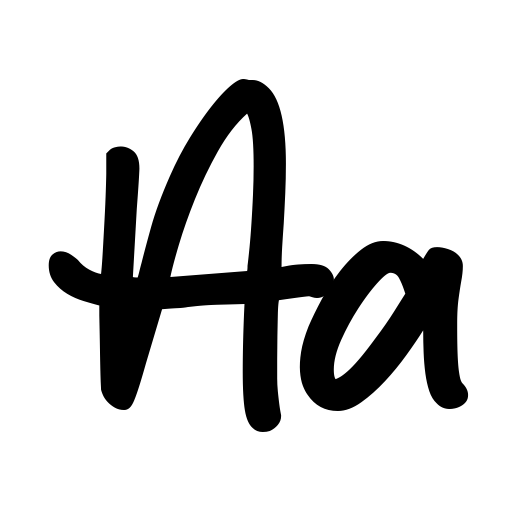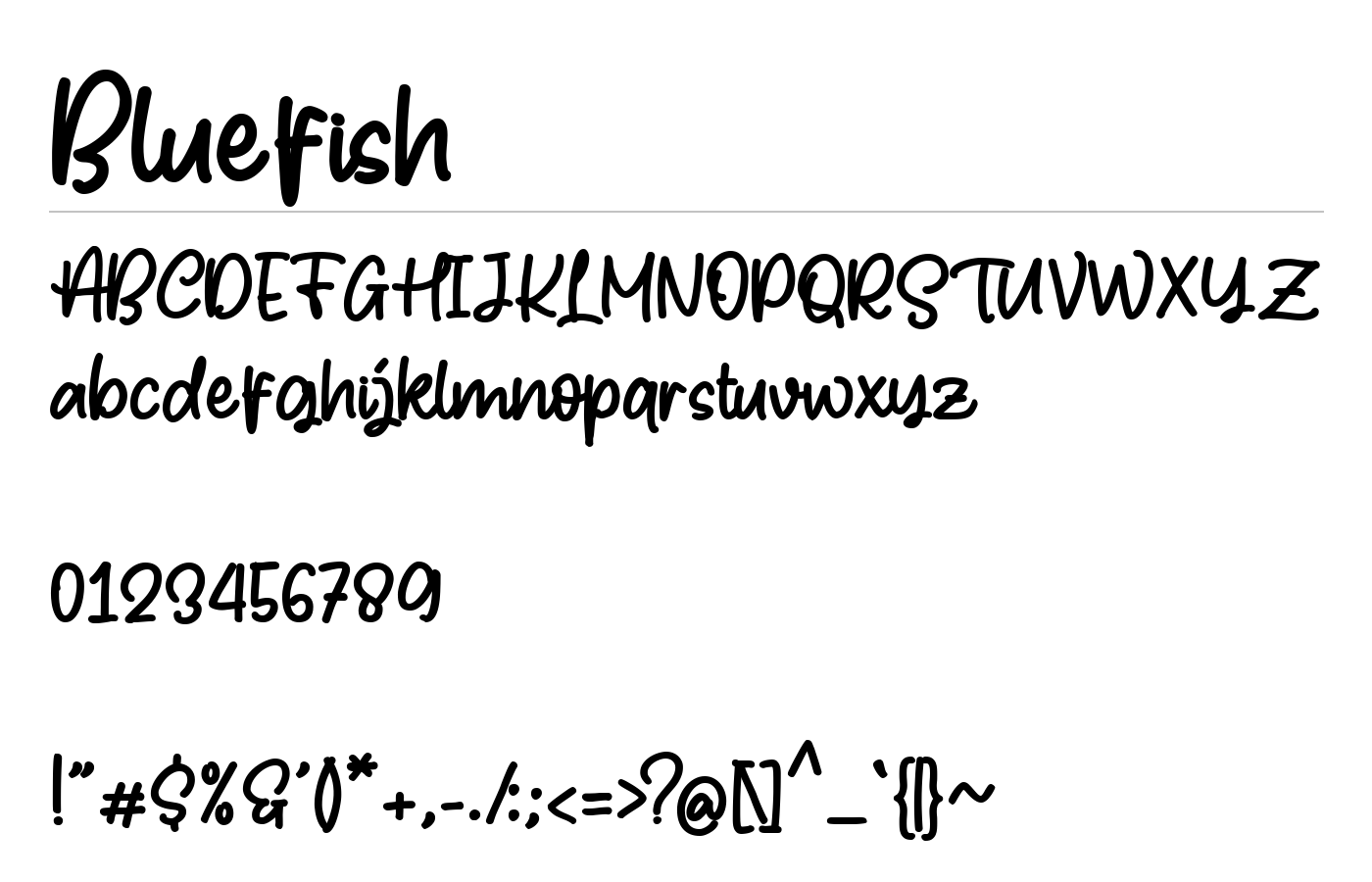
Bluefish Font is a playful, casual handwritten typeface with a friendly and approachable feel. Its rounded, slightly irregular letterforms and medium weight make it perfect for adding a personal touch to creative projects, informal branding, or social media graphics. This font’s clear legibility and lively character suit it well for headlines, logos, and packaging that aim to convey warmth and creativity.
Bluefish Font
About Bluefish Font
| Font family | Bluefish Font |
| Designer | Vunira Design |